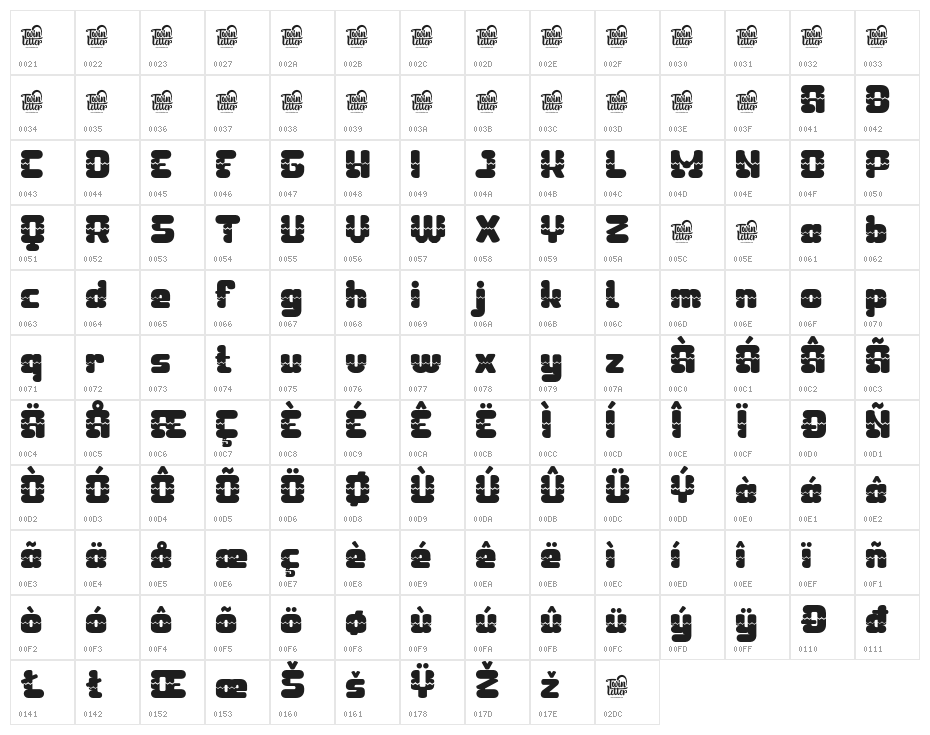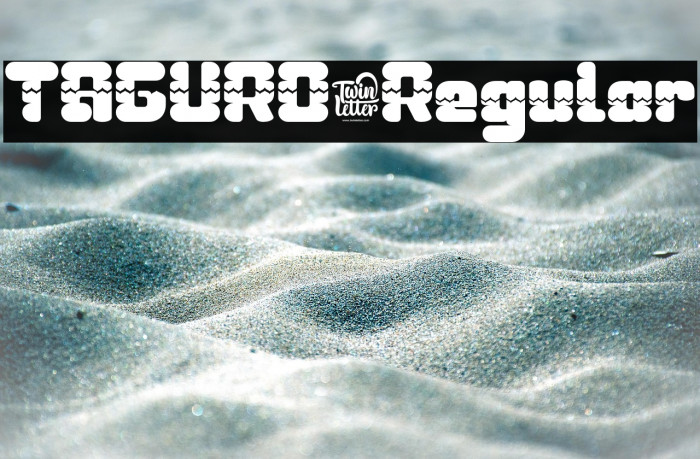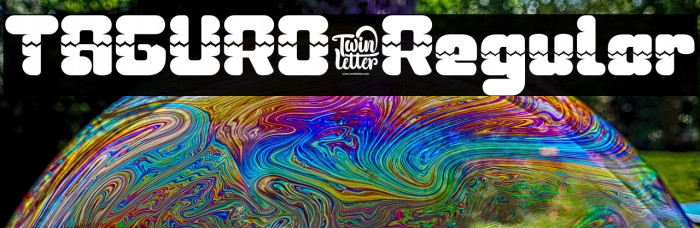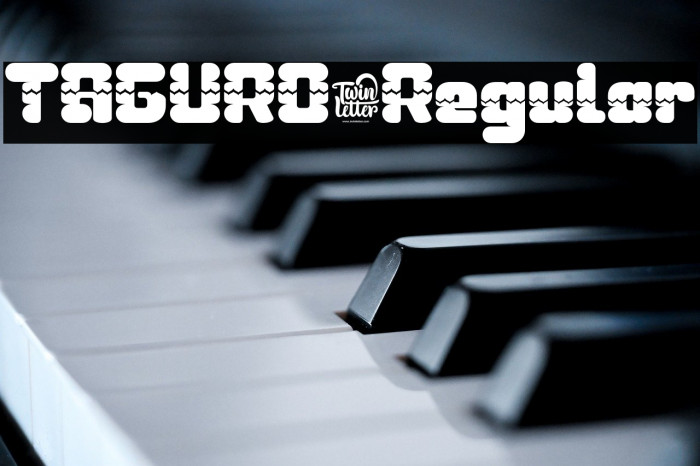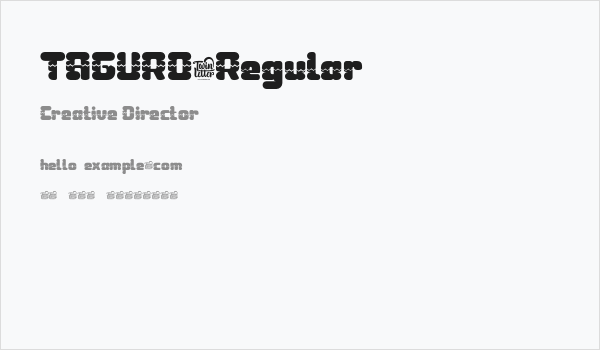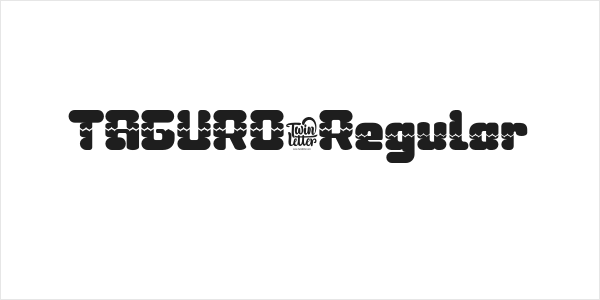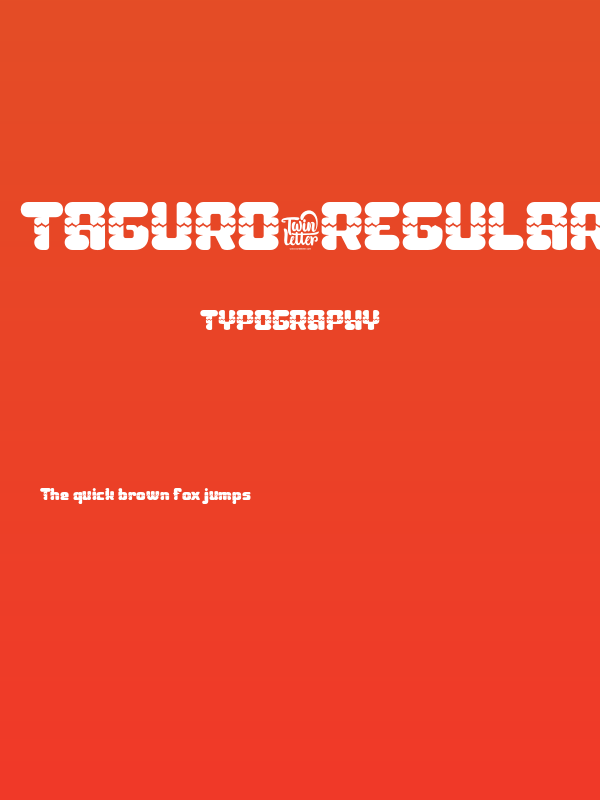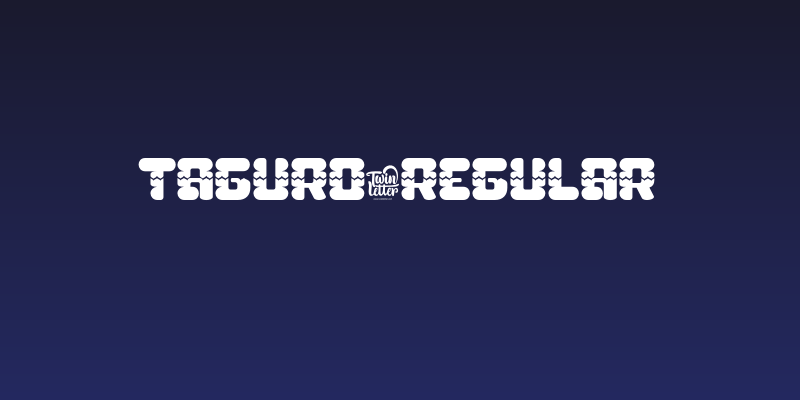
TAGURO-Regular Font
TAGURO-Regular Description
This font features a bold and playful design with a unique geometric style. The characters are constructed with solid, rounded shapes that create a sense of depth and dimension. Each letter is distinct, with a consistent pattern of cutouts that add a decorative touch. The uppercase and lowercase letters maintain a uniform appearance, while the numbers and special characters follow the same stylistic approach. This font's boldness and creativity make it stand out, offering a modern and artistic vibe.
| Use Case | Logos, Posters, Branding |
| Proposed Projects | Ideal for branding, posters, and creative projects that require a modern and artistic touch. |